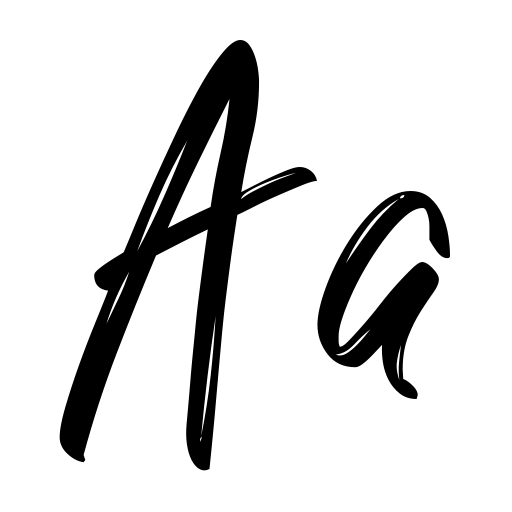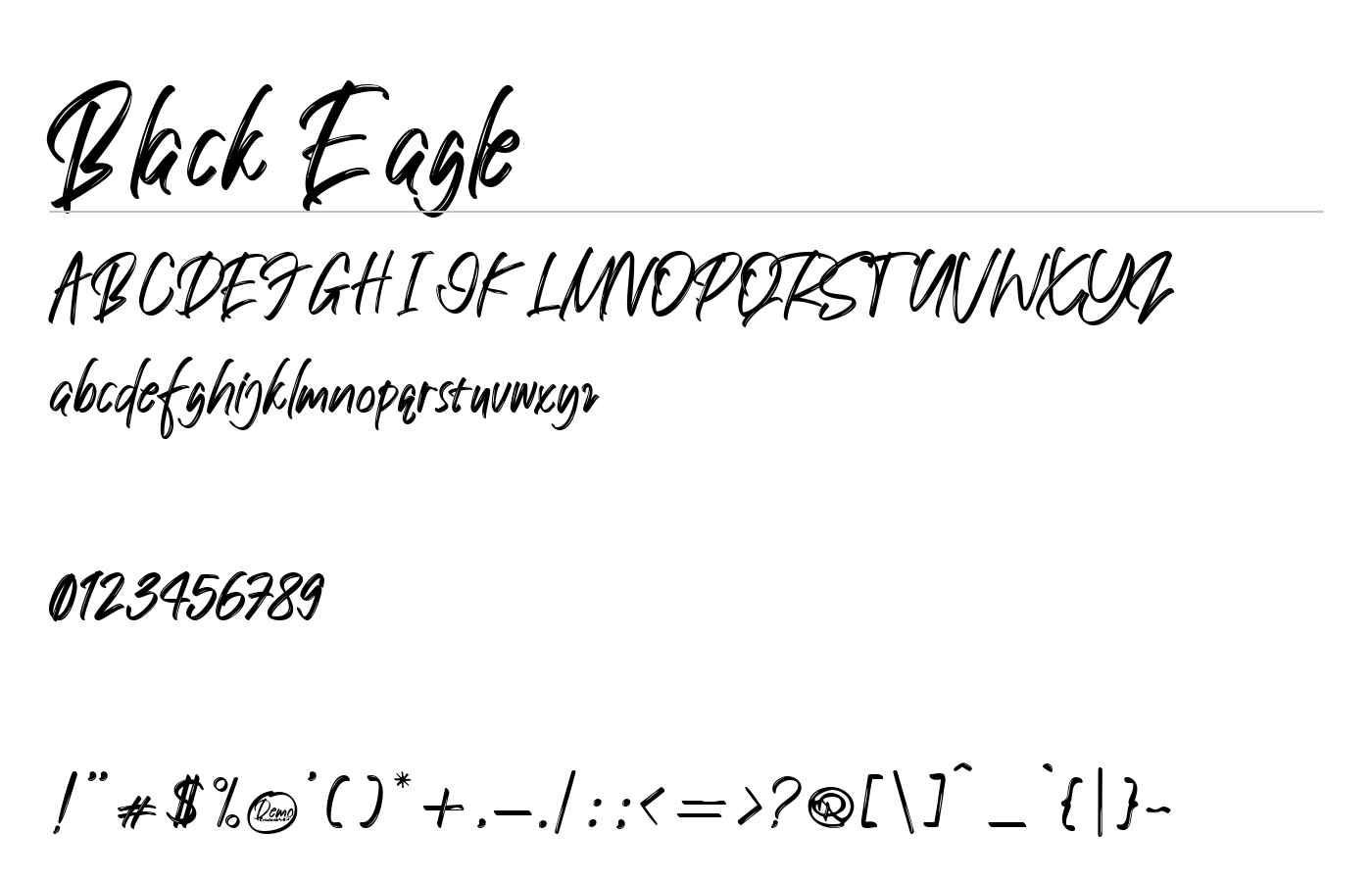
Black Eagle is a dynamic script font with a bold, expressive style that combines fluid, handwritten strokes with a confident, slightly rough edge. Its lively letterforms and energetic flow make it an excellent choice for creative branding, logos, and headlines that want to convey personality and modern flair. This font works well in projects seeking a distinctive, artistic touch with an informal yet impactful presence.
Black Eagle Font
About Black Eagle Font
| Font family | Black Eagle Font |
| Designer | Daddi Daryawan |